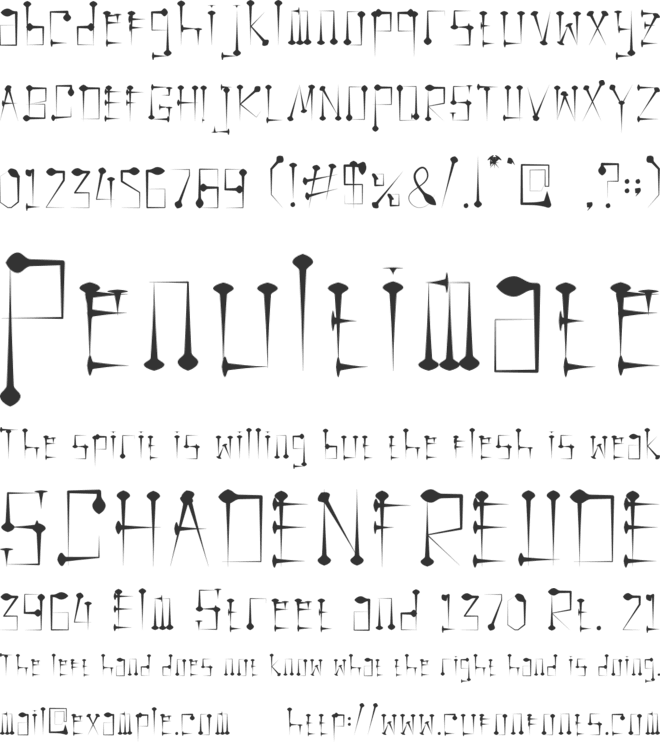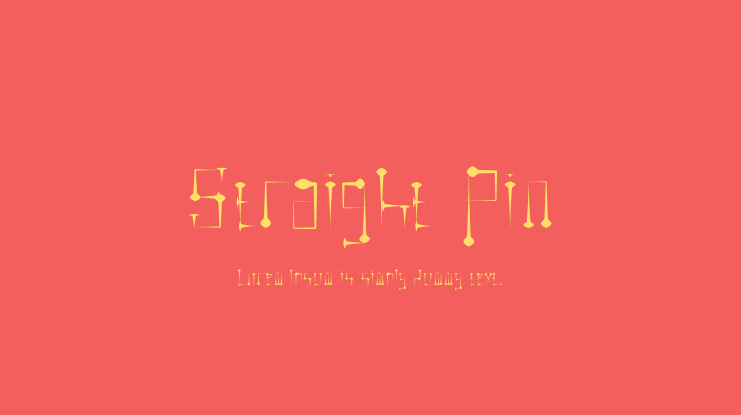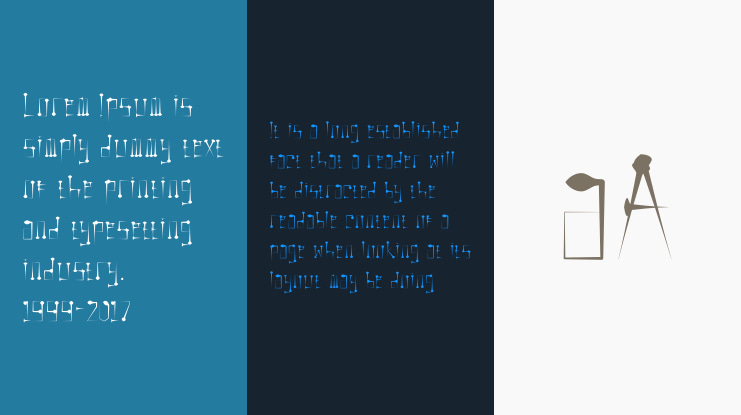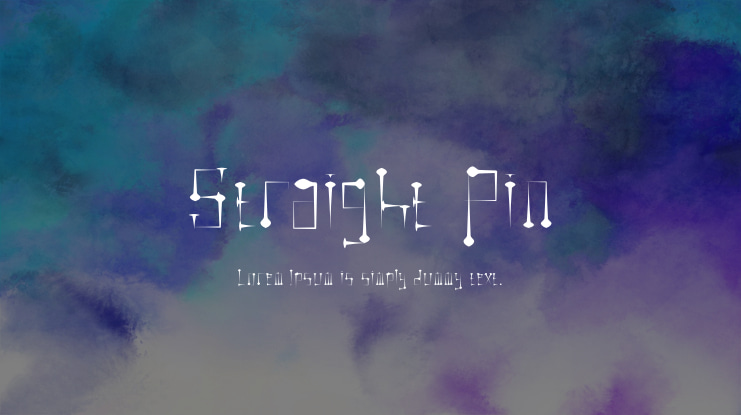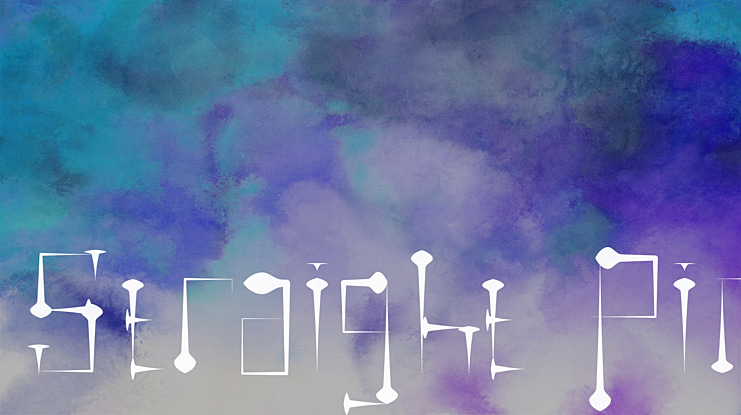
Straight Pin Font
Muhammad Nashrul Aziz
Straight Pin is a cool, robotic and squared looking display font. This font is ideal for writing web designs, business cards, or pretty much anything else that requires a unique touch.